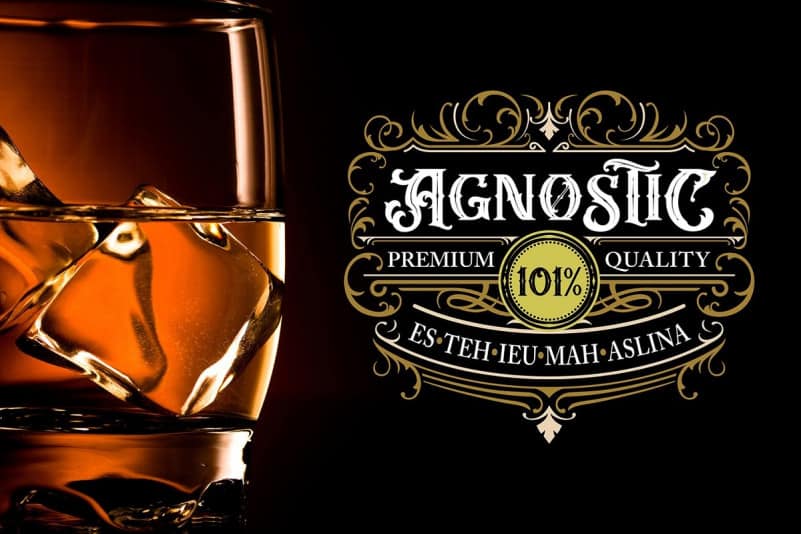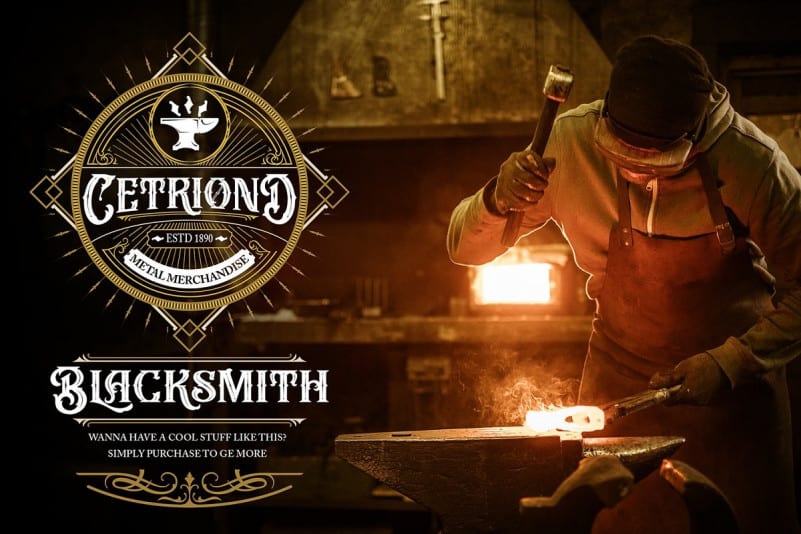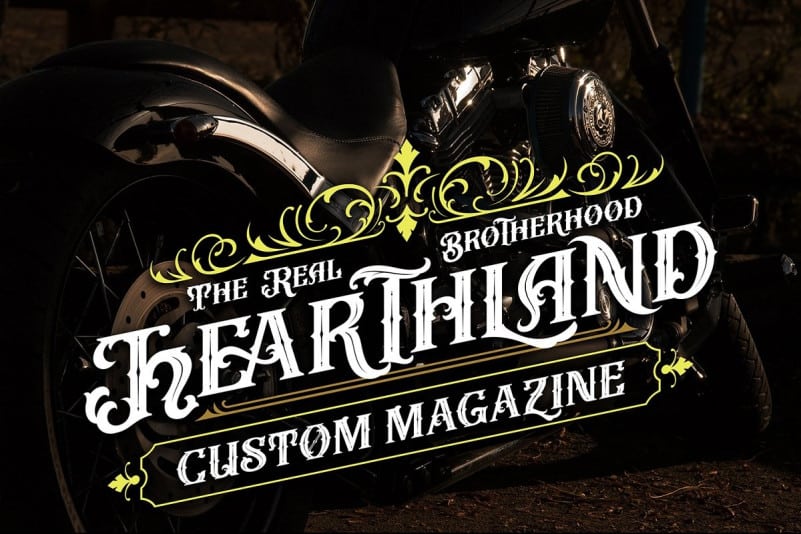
Vanguard Blackletter Font
Vanguard Blackletter Font is a font inspired by beautiful vintage sign art and lettering. It’s designed and shared by Vunira. The font comes with special uppercase letters and some alternate characters to give your designs an elegant and artistic look. It is perfect for logo and packaging design, short phrases or headlines. Furthermore the product includes a set of vector ornaments and logo.